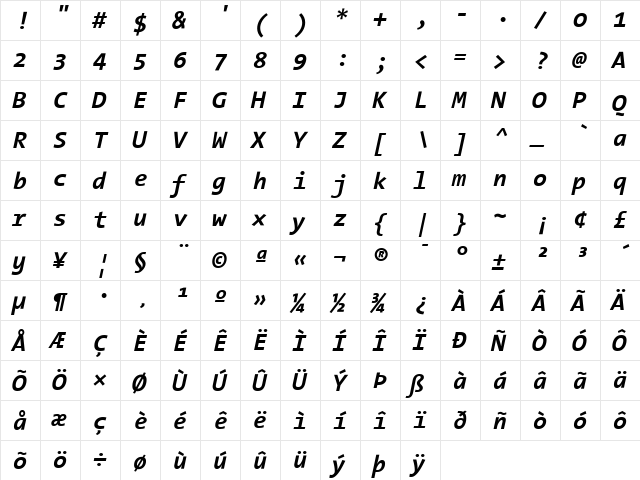
The Sans Mono- Italic Font Preview
The Sans Mono- Italic
The Sans Mono- Italic Font Details
| Foundry | Luc\(as\) de Groot |
Design Context for The Sans Mono- Typeface
The Sans Mono- uses fixed-width spacing throughout, giving it the structured, systematic character associated with coding environments and technical documentation. The slanted form adds forward momentum and visual energy.
Pro Tip: Pair The Sans Mono- with a proportional sans for UI contexts where code-style labels and regular body copy need to coexist.